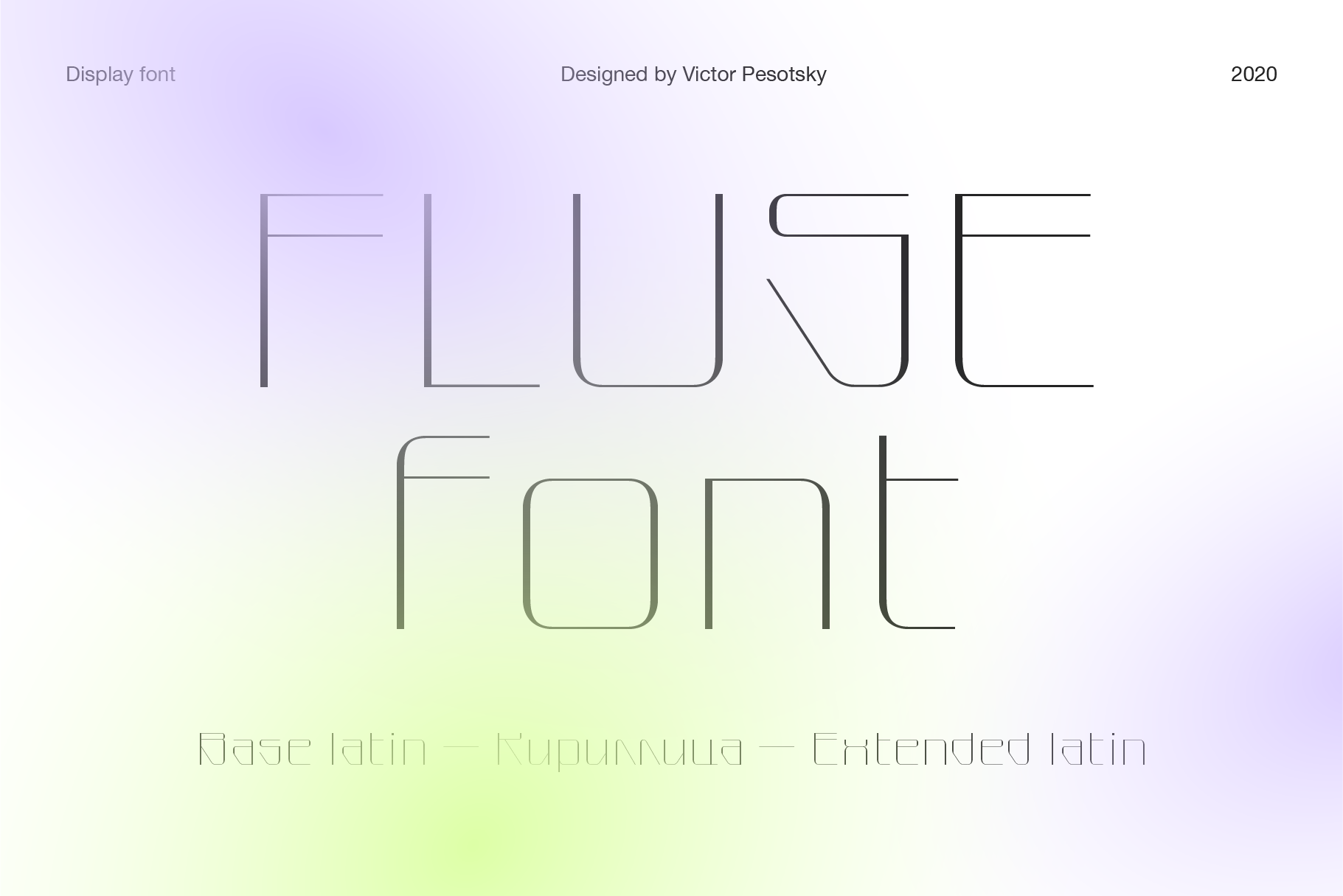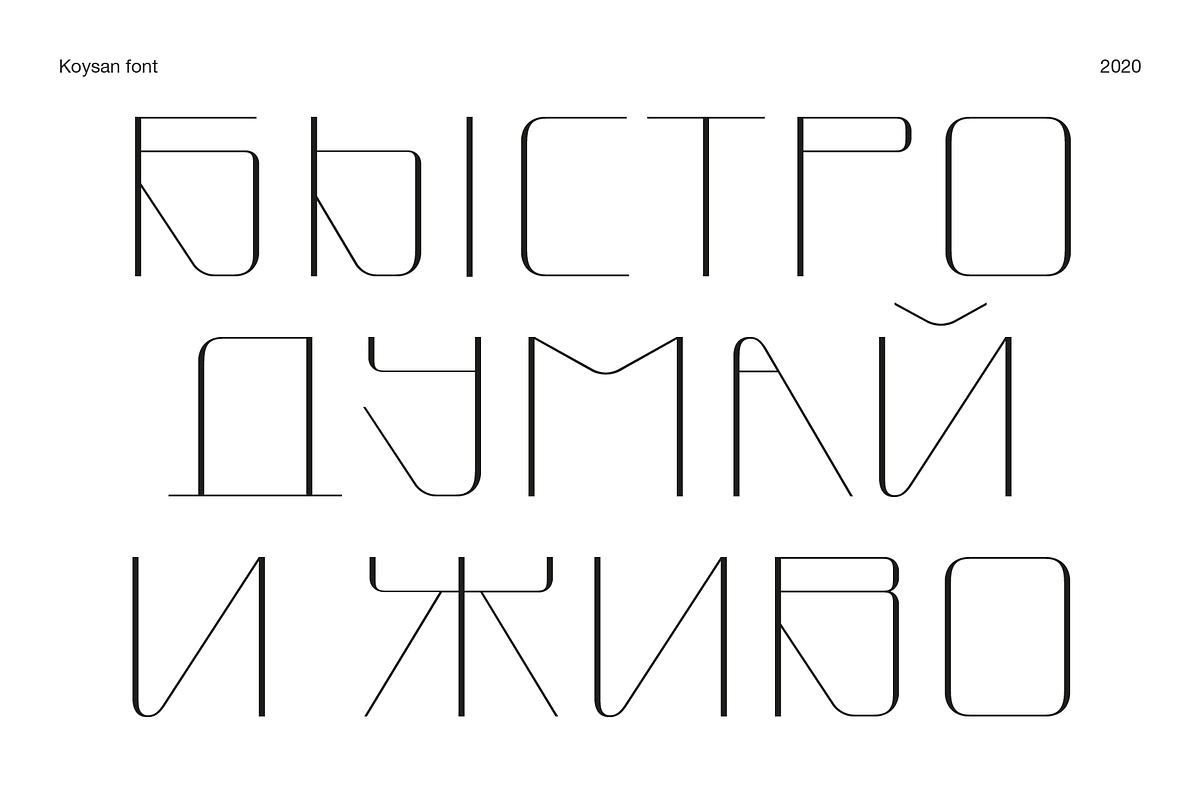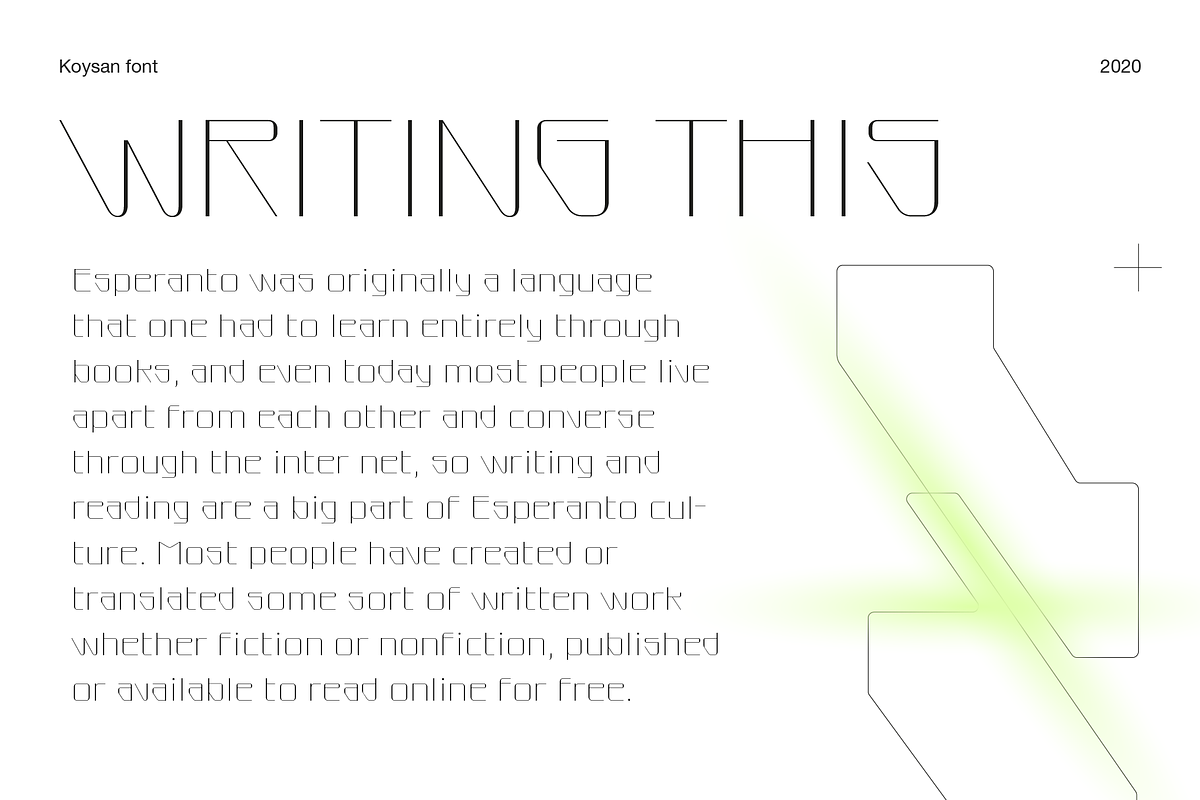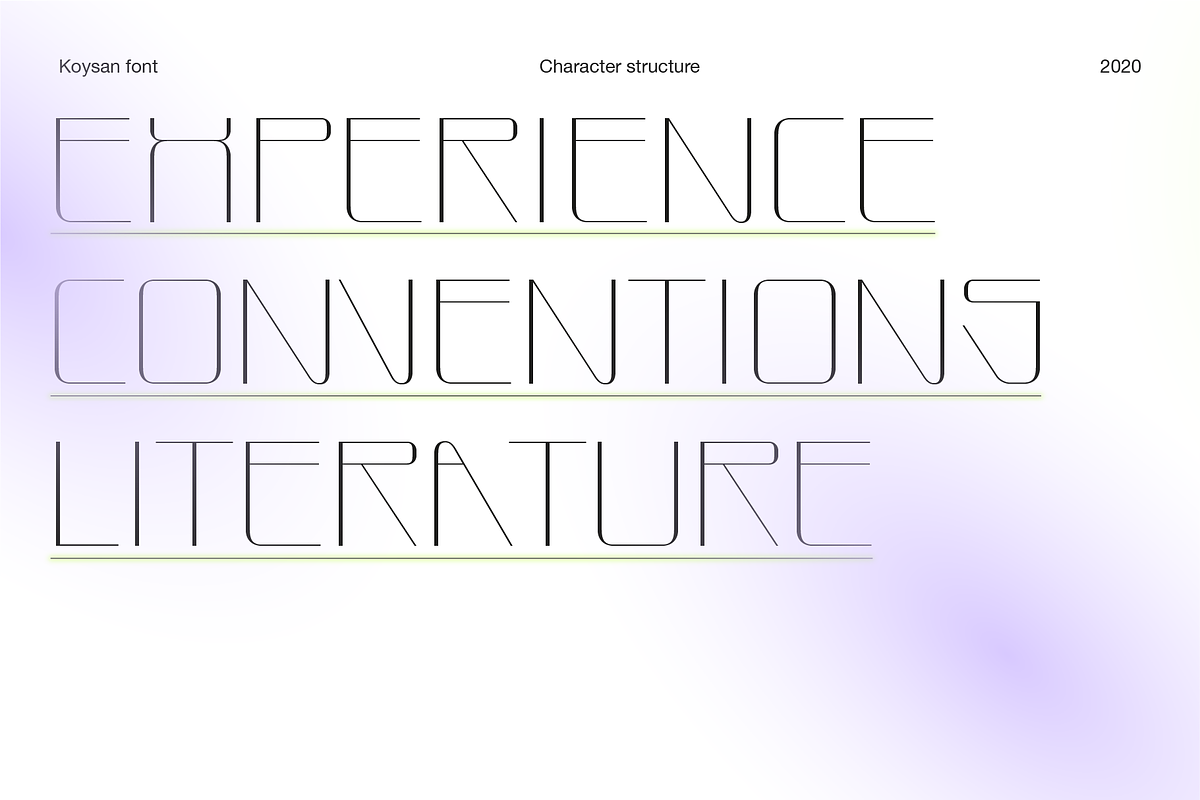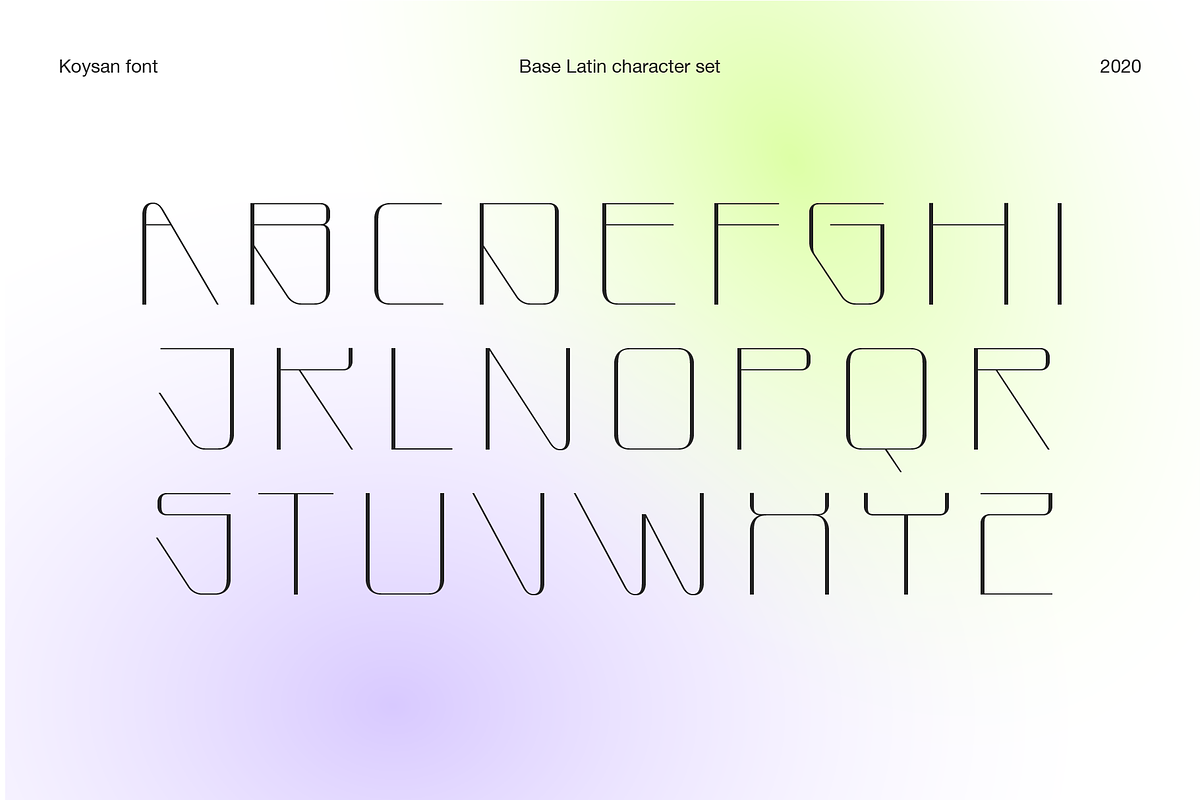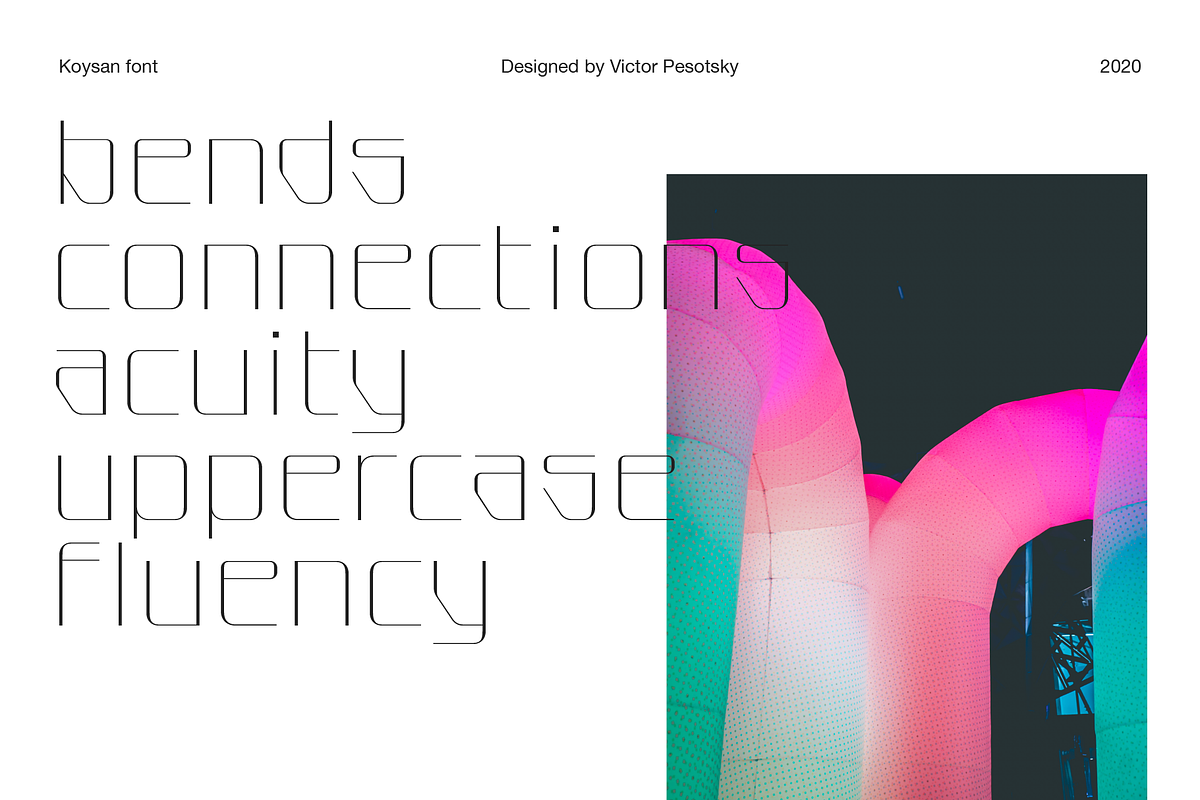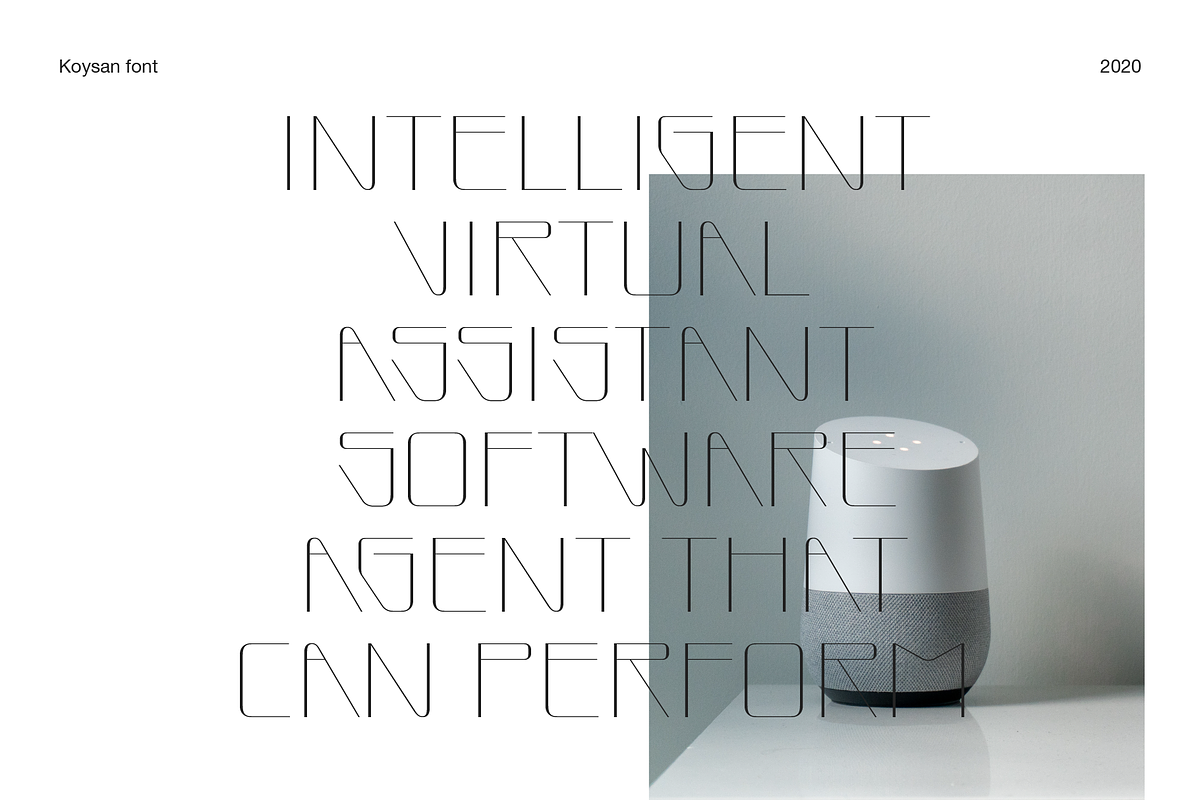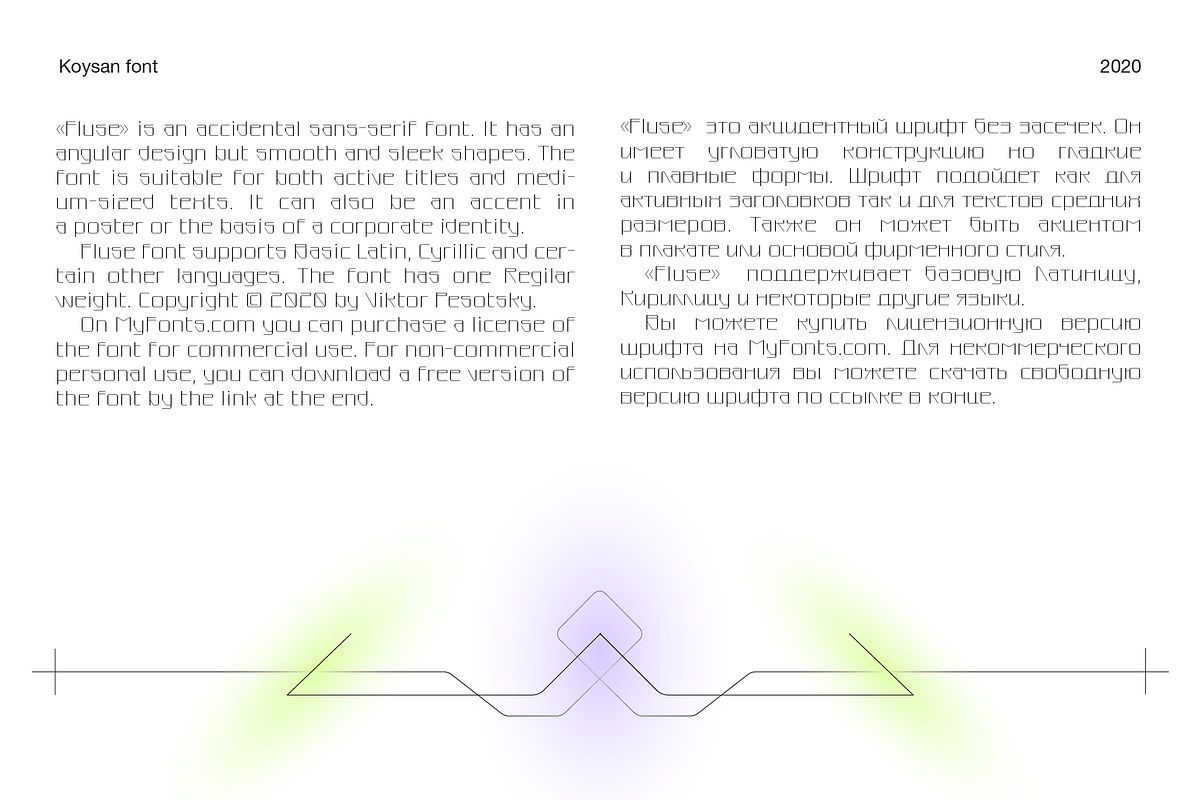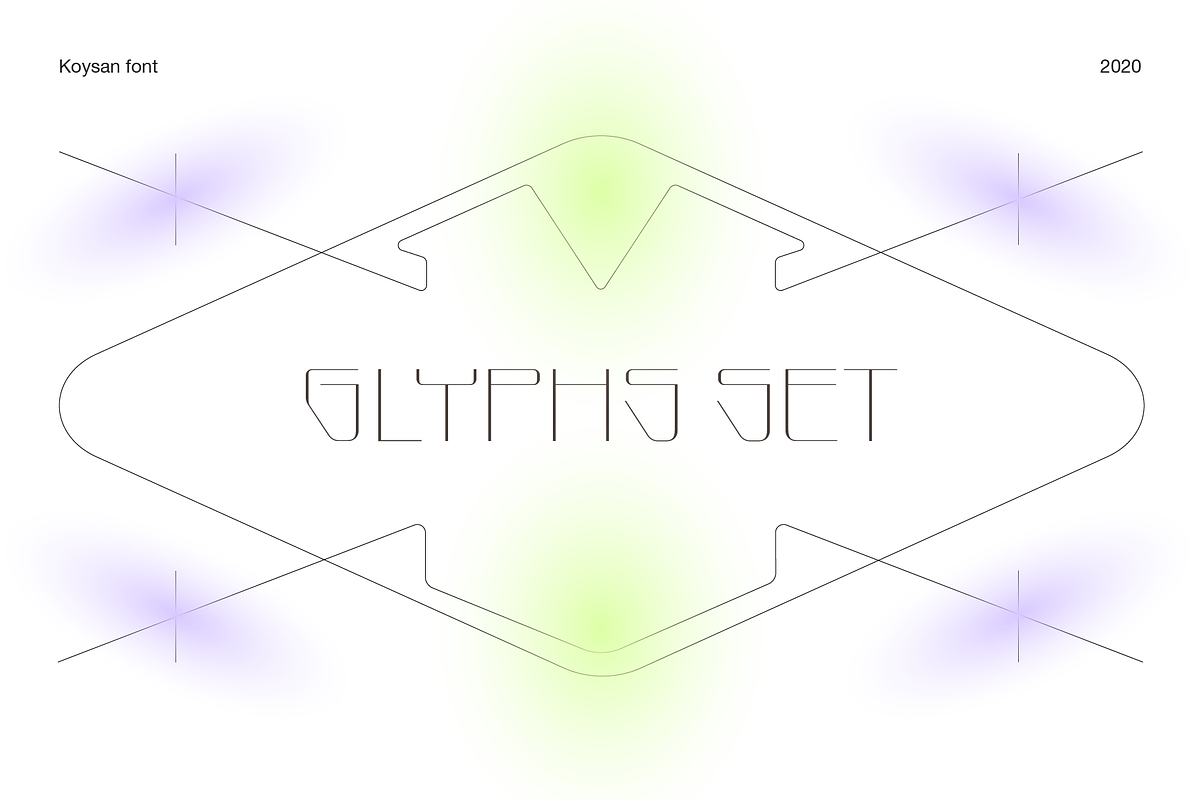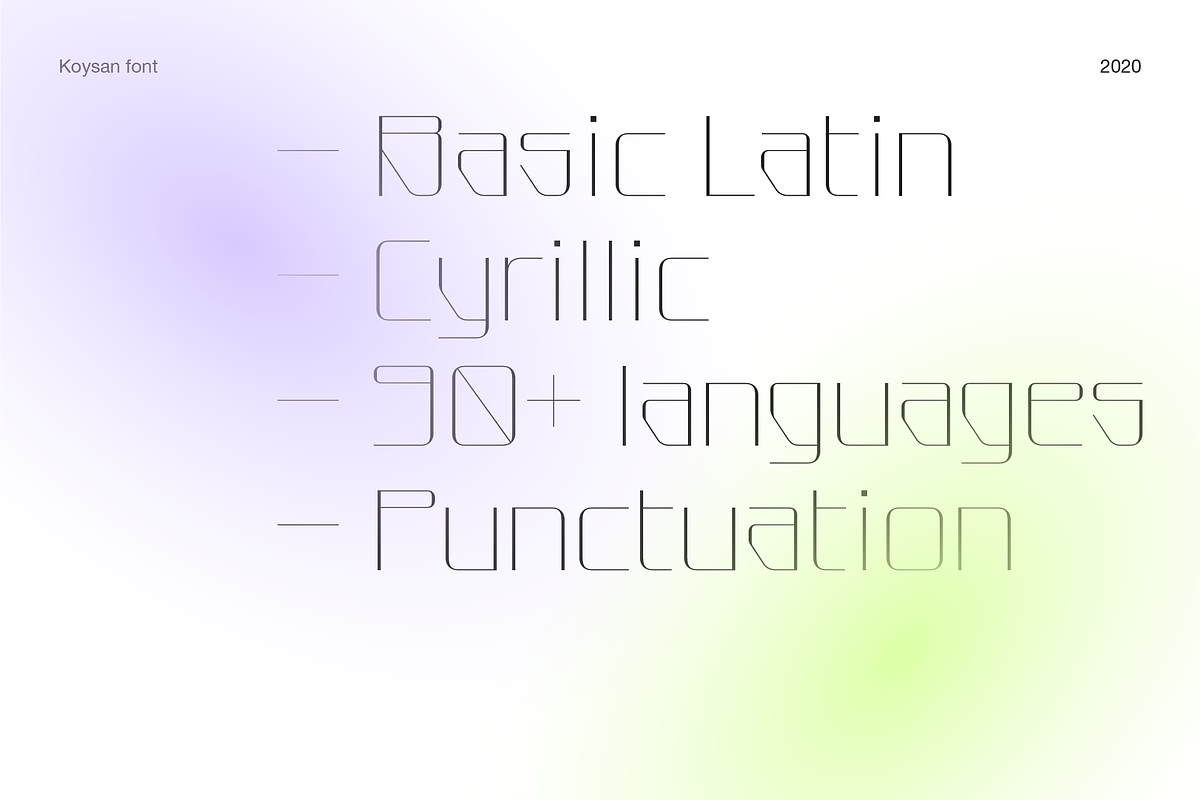
Fluse – Display font
«Fluse» is an accidental sans-serif font. It has an angular design but smooth and sleek shapes. The font is suitable for both active titles and medium-sized texts. It can also be an accent in a poster or the basis of a corporate identity.
Font supports about 100 languages, including Cyrillic. Punctuation and punctuation marks, numbers and diacritical marks. The font has one regular weights.
♦Fluse supports
- Basic Latin
- Extended latin
- Cyrillic
- Diacritics
- Punctuation signs
- Currencies